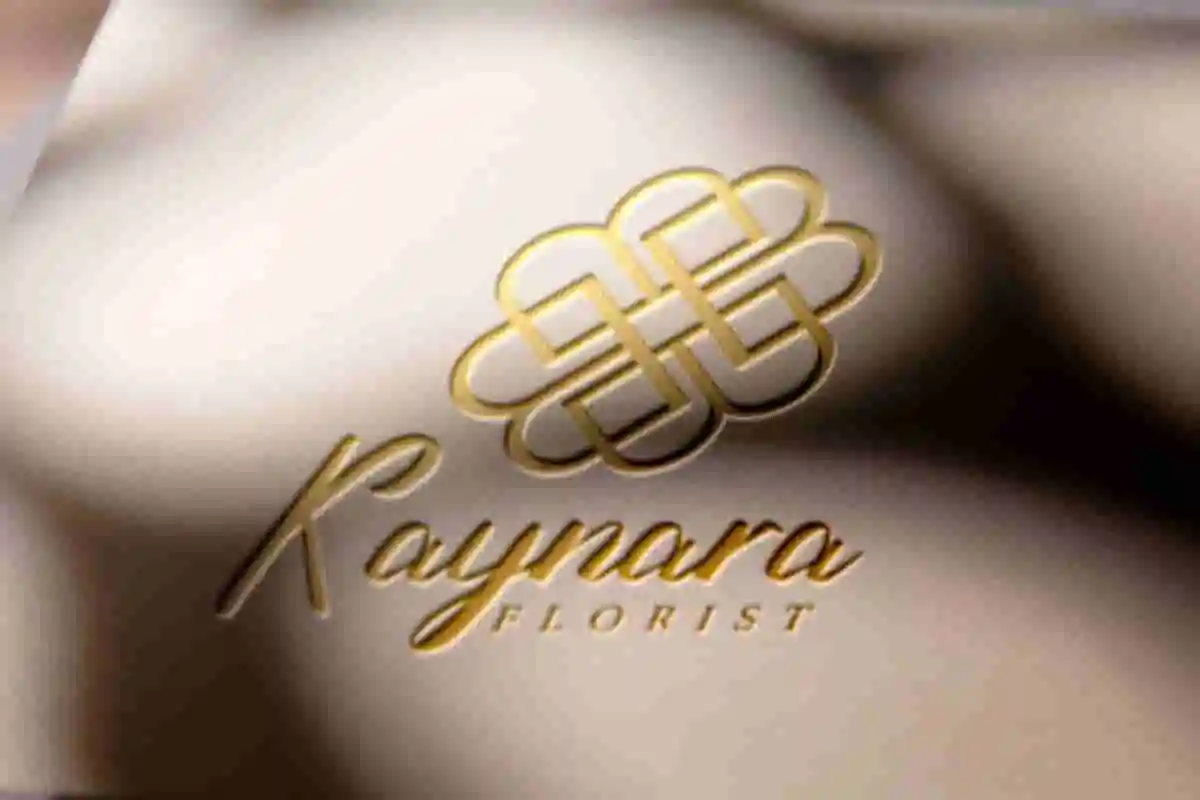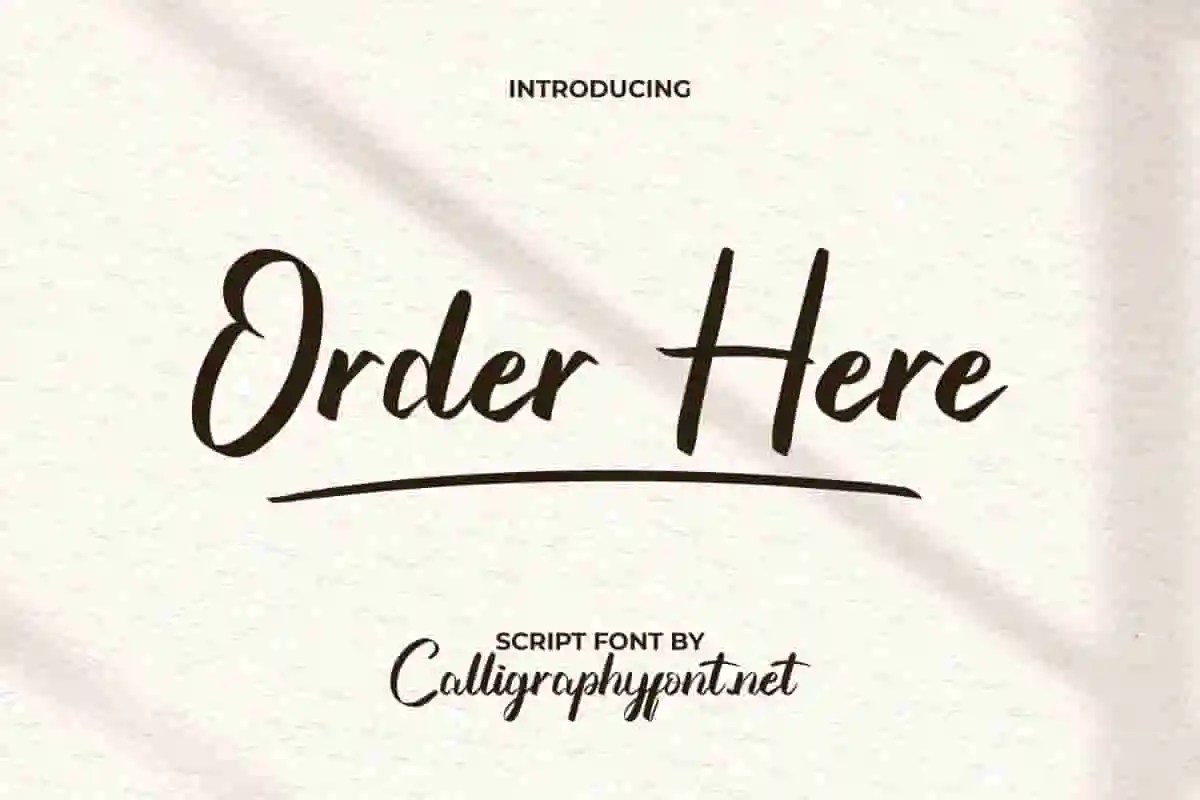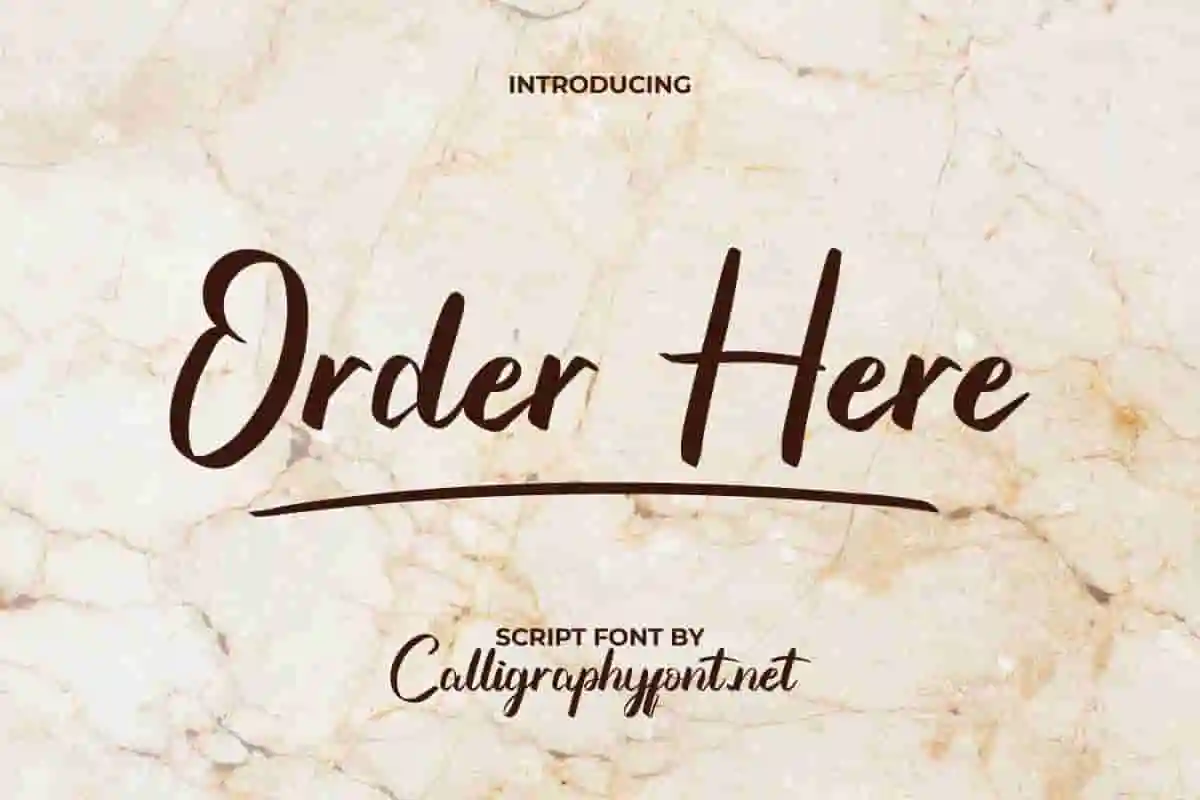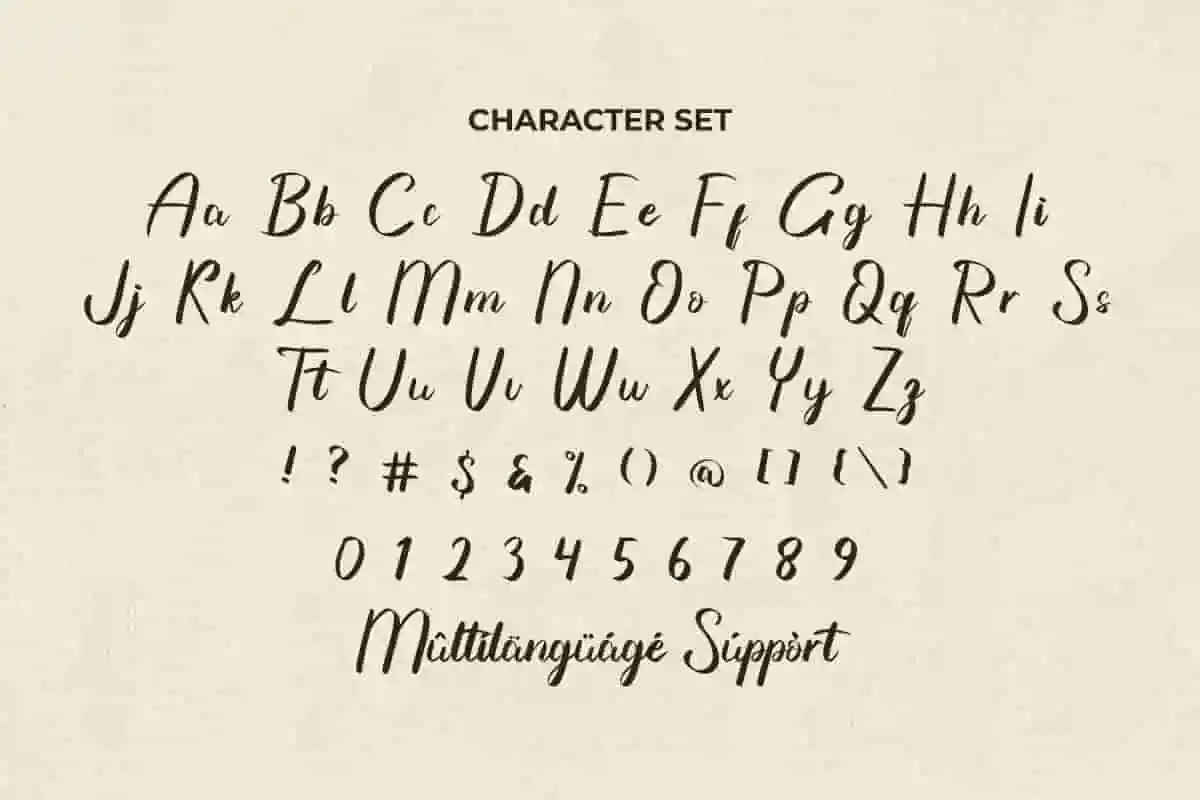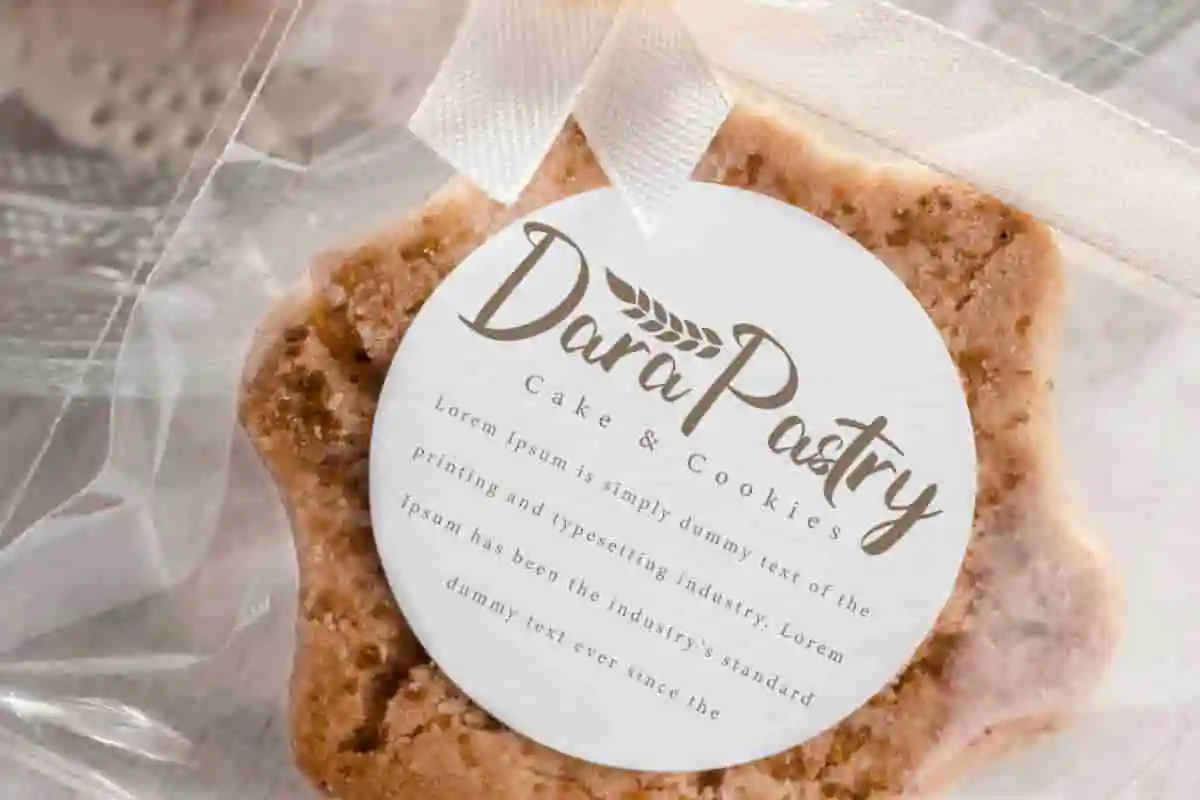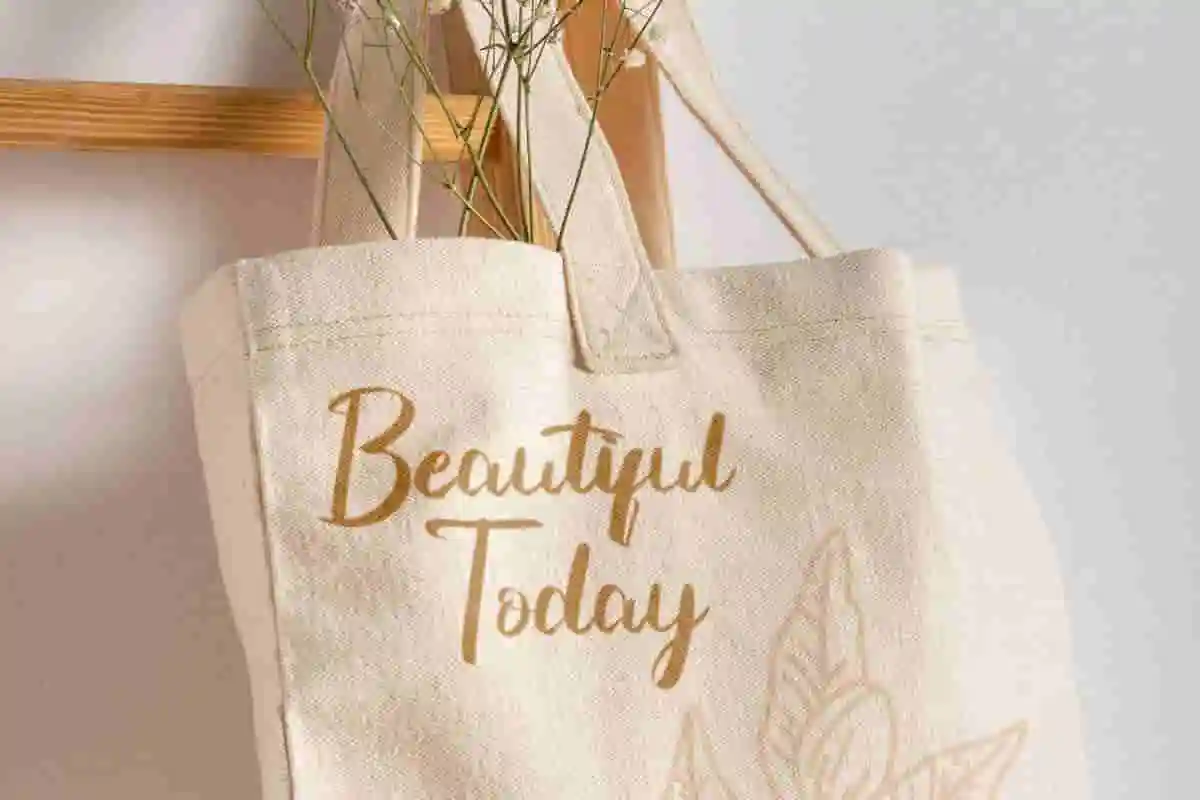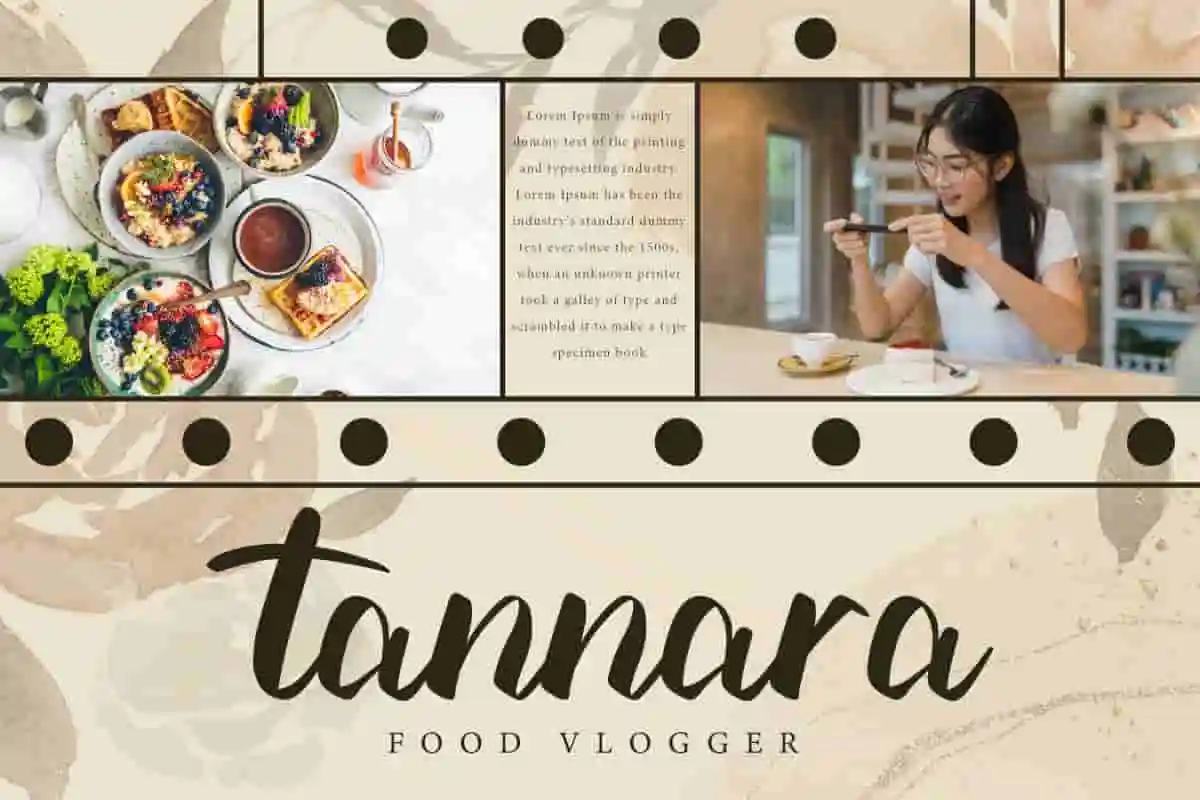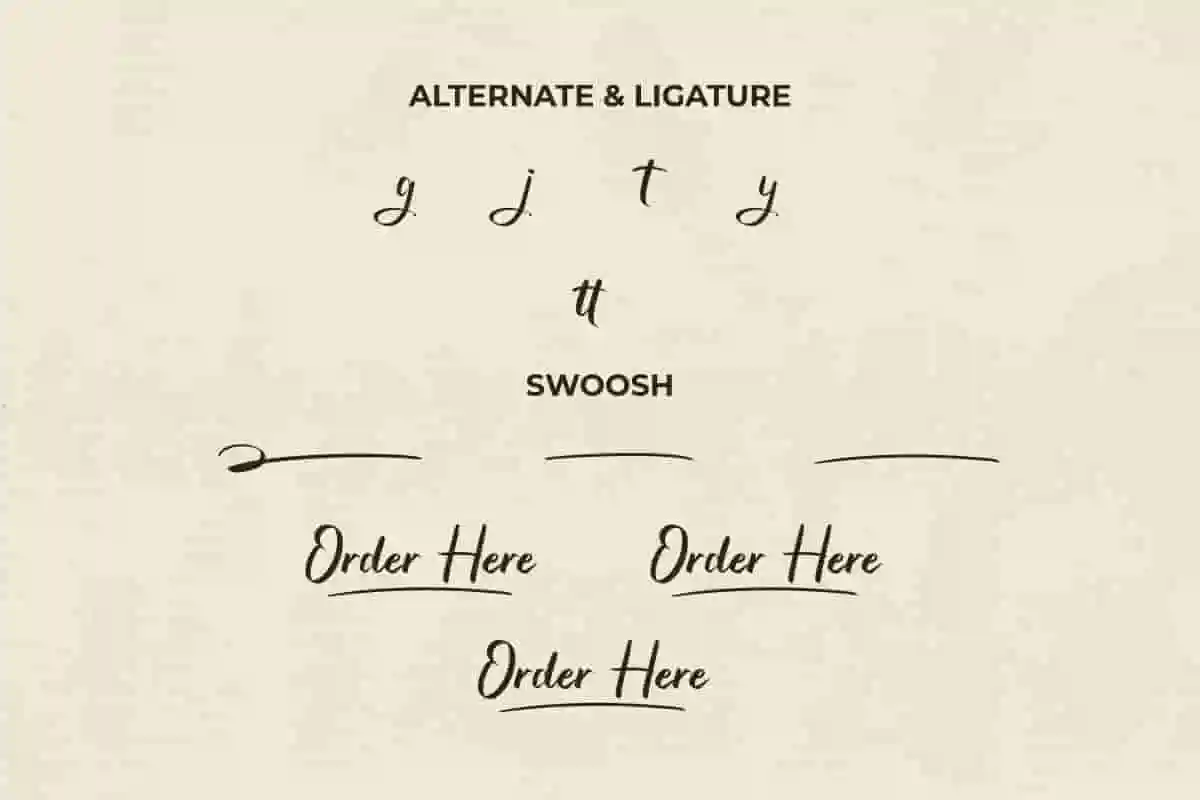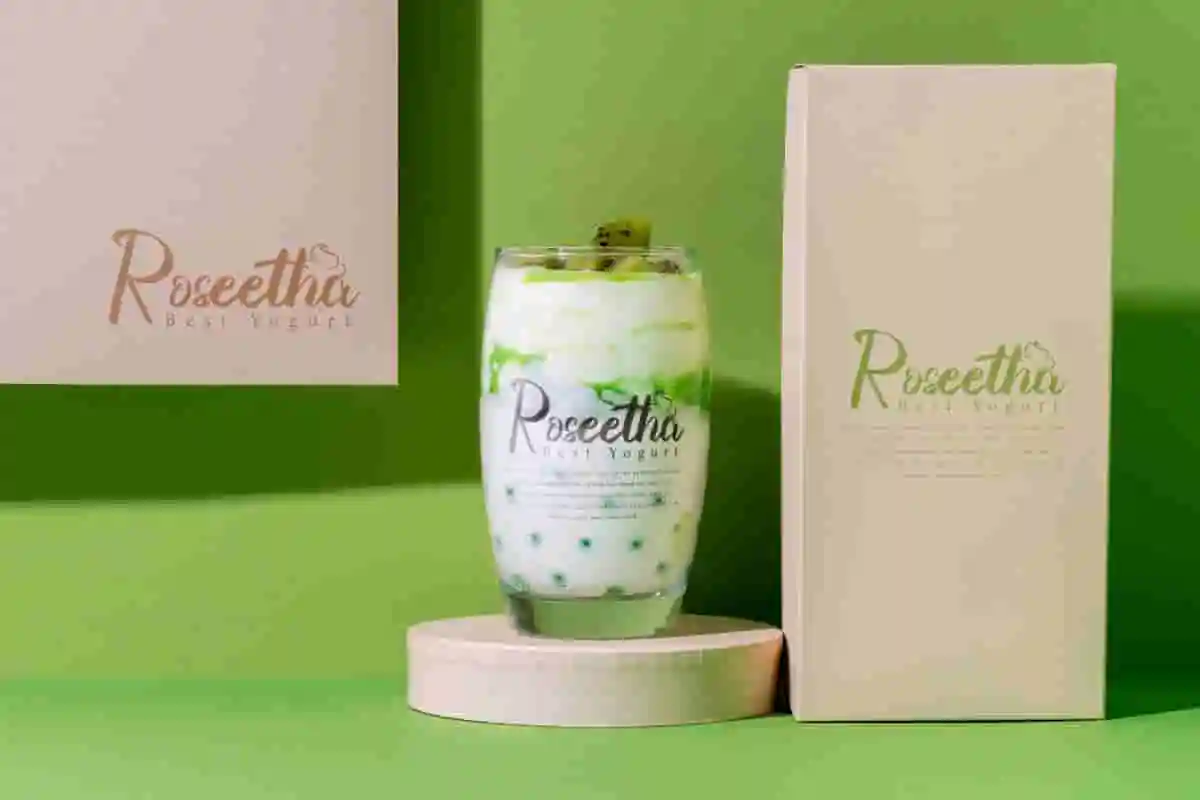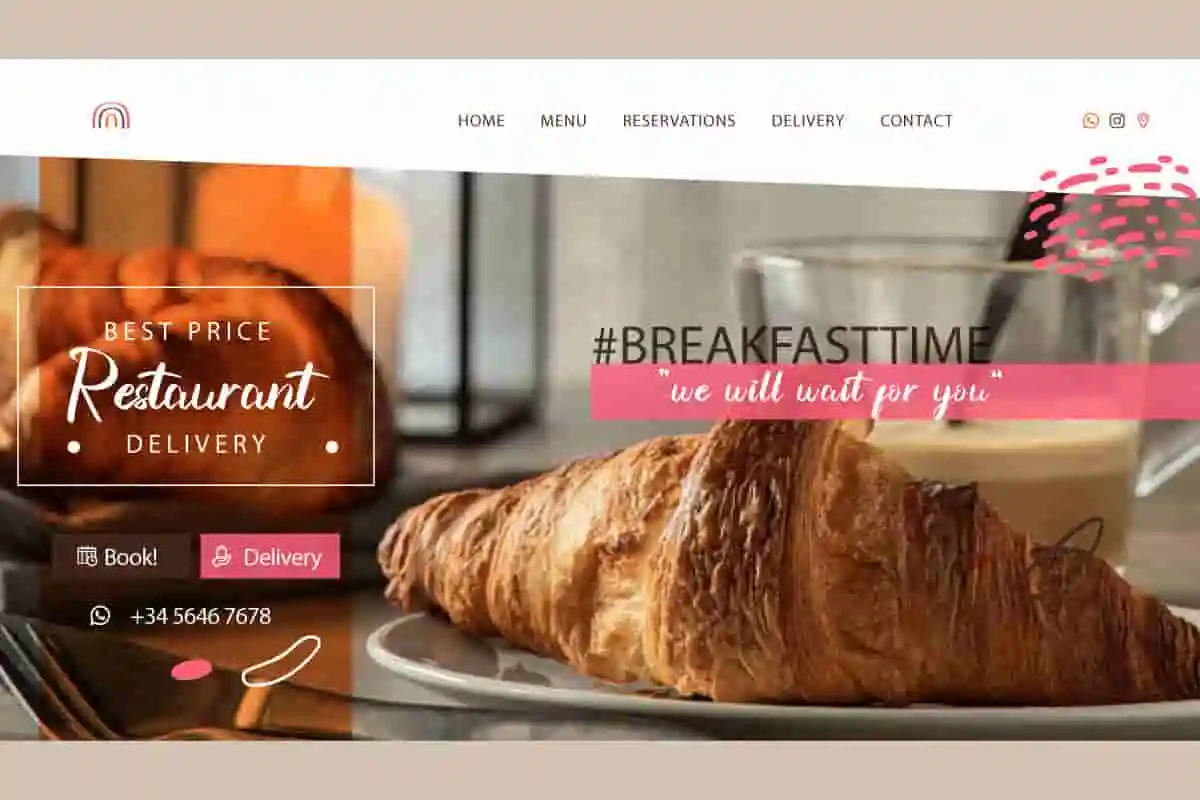
Order Here Font
Order Here Font is an enchanting and timeless calligraphy script font. This font will be great for bakery & pastry, cover, florist, label, screen print, signage, sticker, title, watermark, website, etc.
Order Here Font is a pretty clean script font created by CalligraphyFonts. This casual and impressive typography is dominated by bold emphasis on each side/part of the letter making it suitable for any industry, such as architect, bakery, clothing brand, craft, event organizer, florist, furniture, healthy food, pastry shop, printing, publishing, restaurant, skincare, spa salon, vlogger, and much more.
Order Here Font is a great choice for making it the main text or paired with other types of fonts. It will be ready to accompany you on any project, such brand logo, brochure, catalog, cover, embossed design, flyer, invitation, label, menu, photo album, quote, screen print, signage, stationery, sticker, title, watermark, website, and other projects that require a non-boring and modern look.
Order Here Font comes with a full set of Uppercase and Lowercase Basic Characters, Number, a large range of Punctuation and Symbol. This font is also equipped with Alternate, Ligature and Swoosh characters that will improve it. Ready to use both on Windows machine or Mac with simple installations. It’s tested to work well in the Adobe Apps (Illustrator, Adobe InDesign, Adobe Photoshop) CorelDraw, and others. It supports multilingual characters. PUA Encode Characters means you can access all the characters easily – Fully accessible without additional design software.